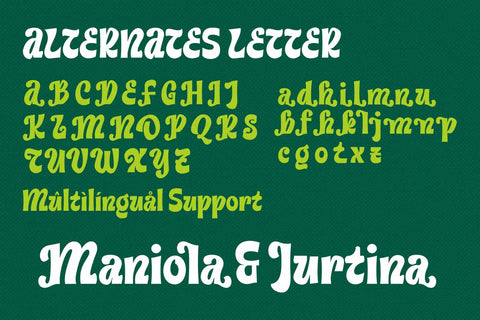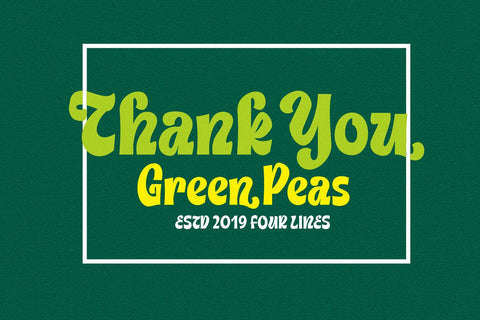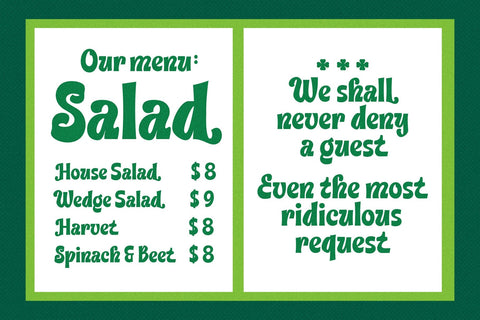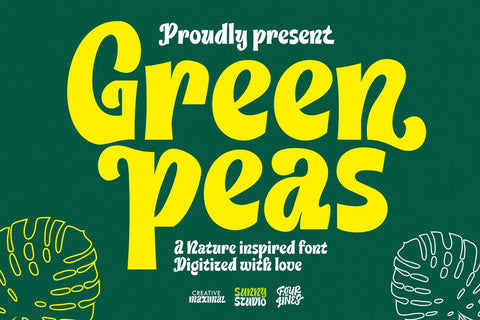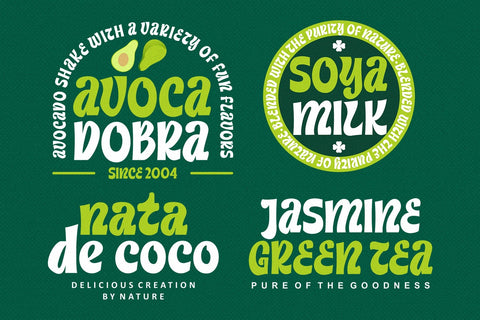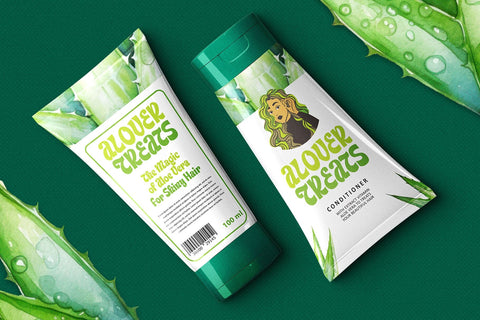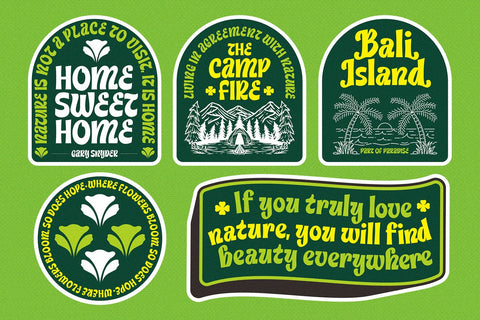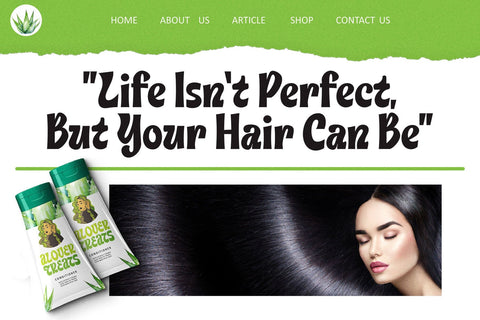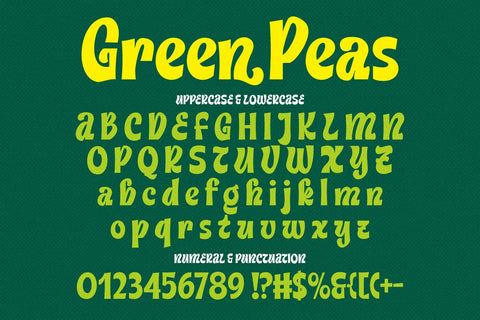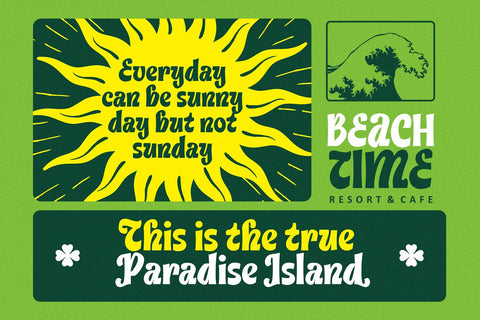
Green Peas - Decorative Font
Crafted with meticulous attention to detail, Green Peas Font offers a harmonious balance between beauty and elegance of nature.
Green Peas Font combines legibility adnd Readibility with a touch of whimsy, making it perfect for both digital and print mediums. Its versatility allows you to seamlessly incorporate it into various projects, from website headers, quotes, inspirational messages, posters, stickers, social media graphics, or personal journals, to book covers, ensuring a consistent and visually striking presence.
Unlock the extraordinary power of Green Peas Font and witness the transformative effect it has on your designs.